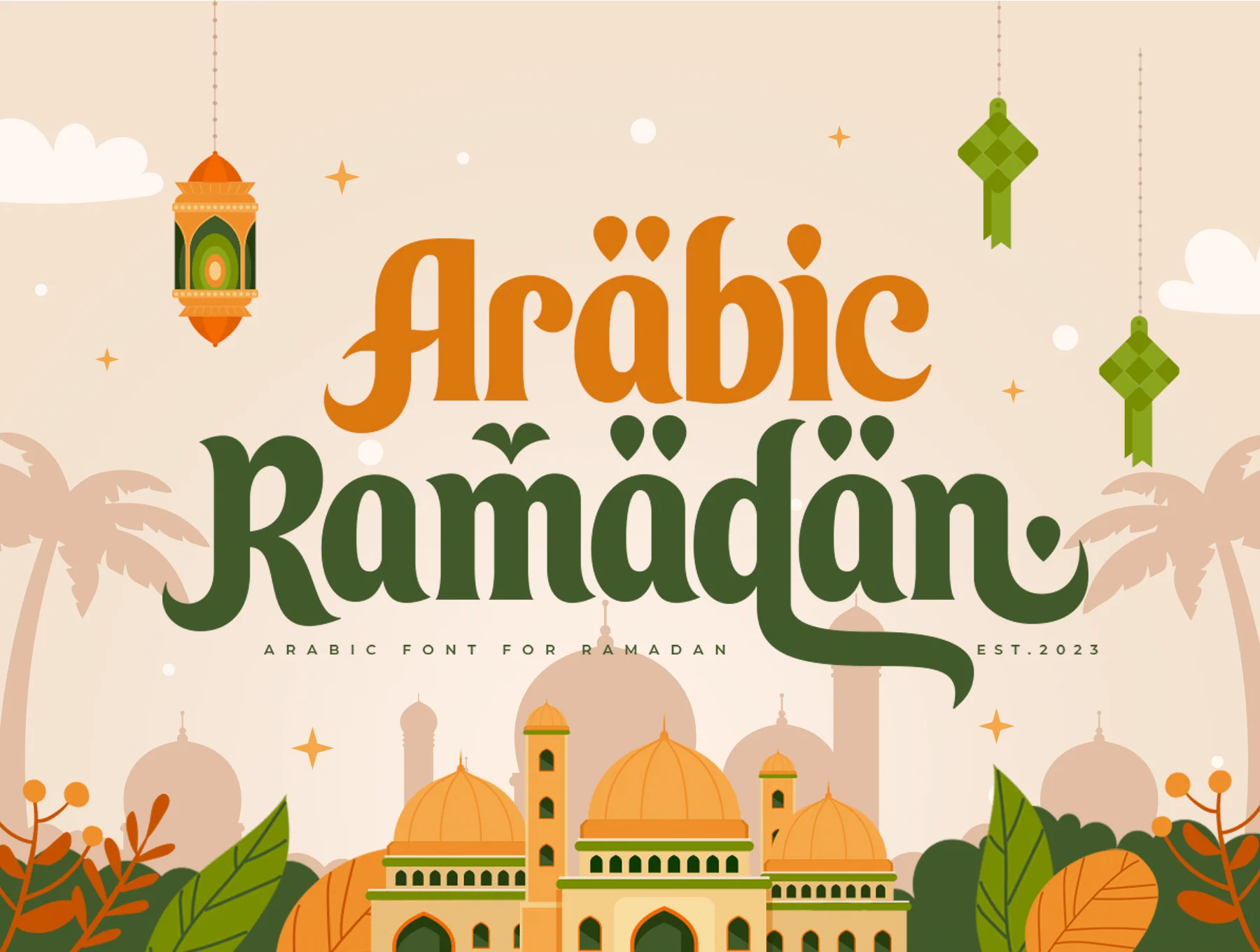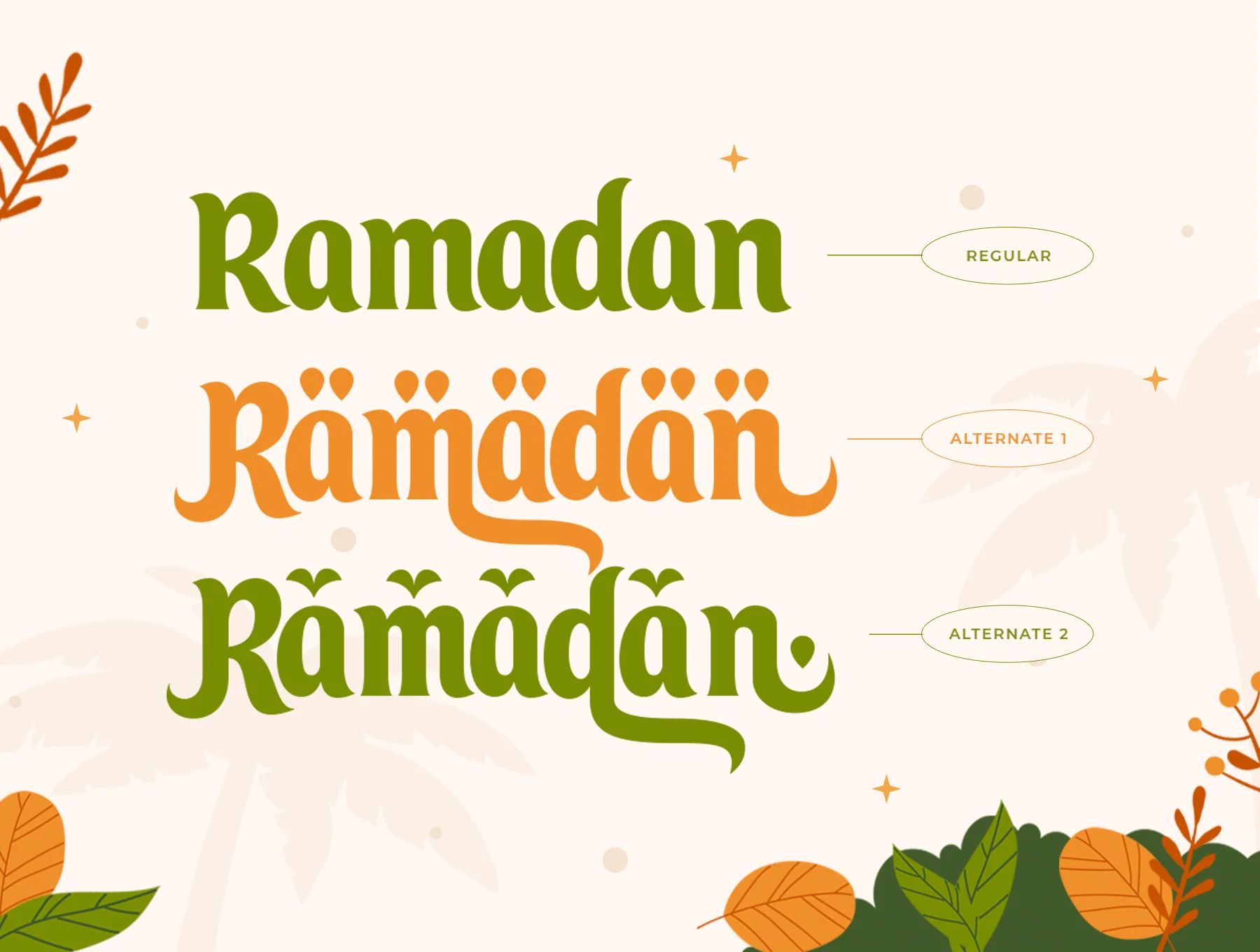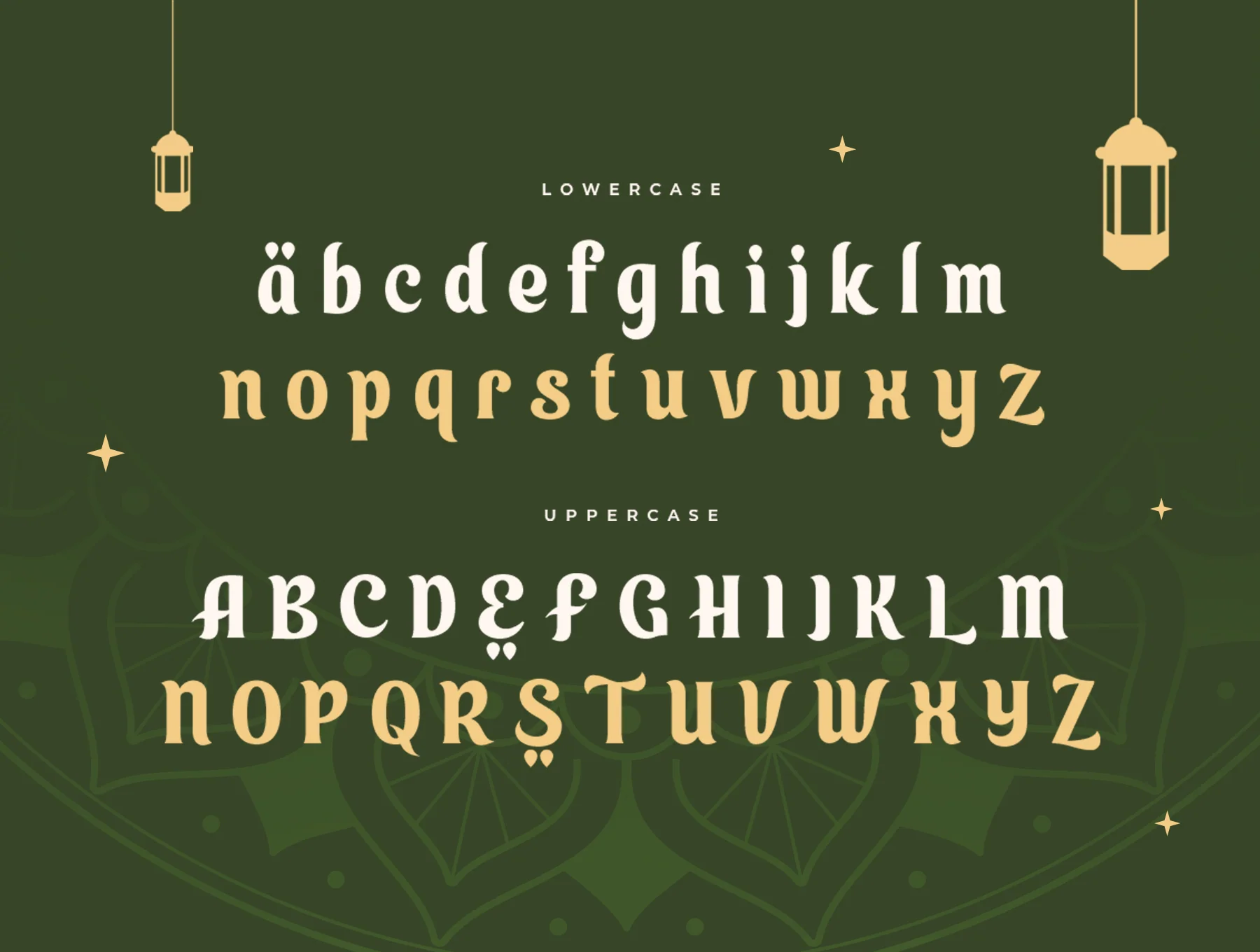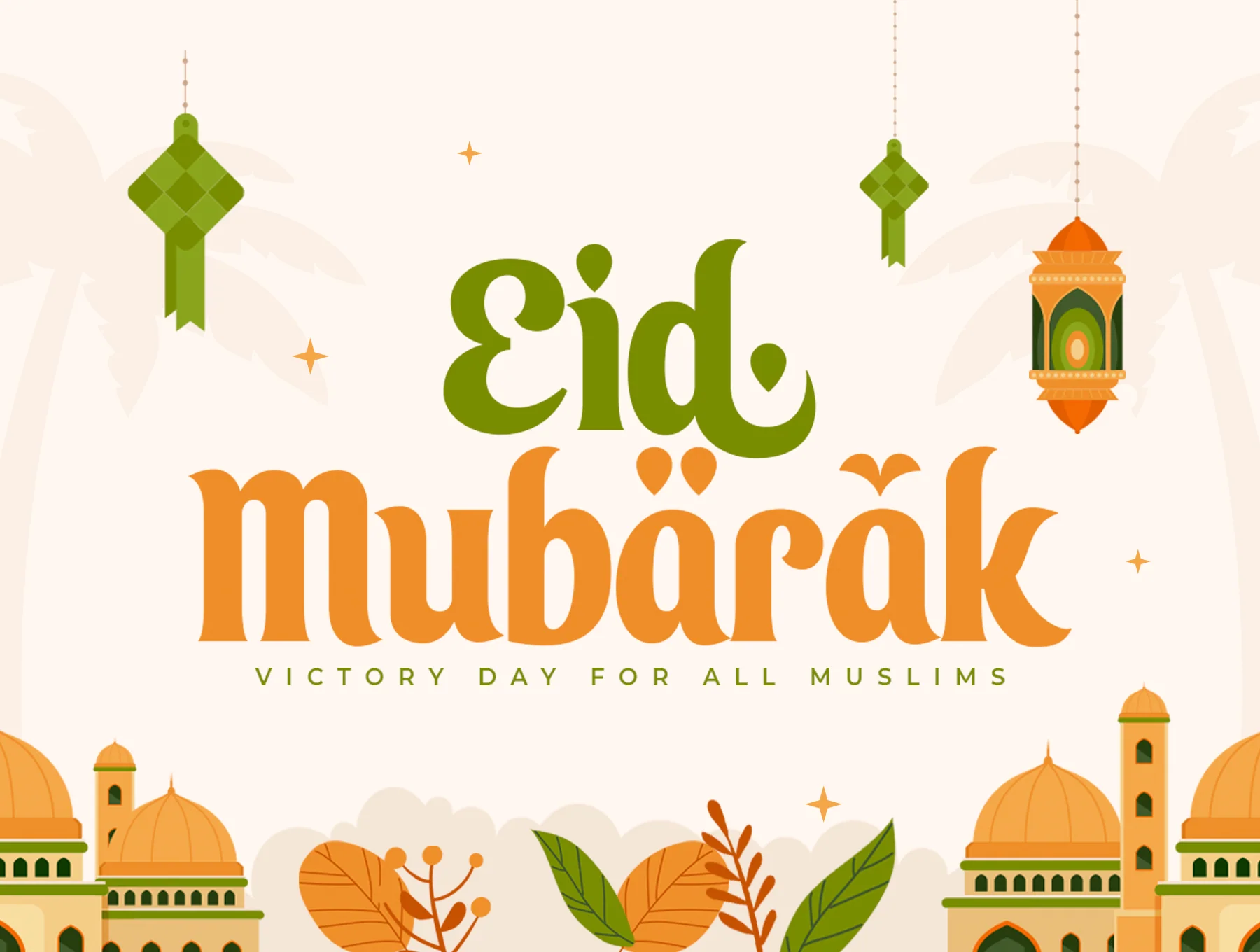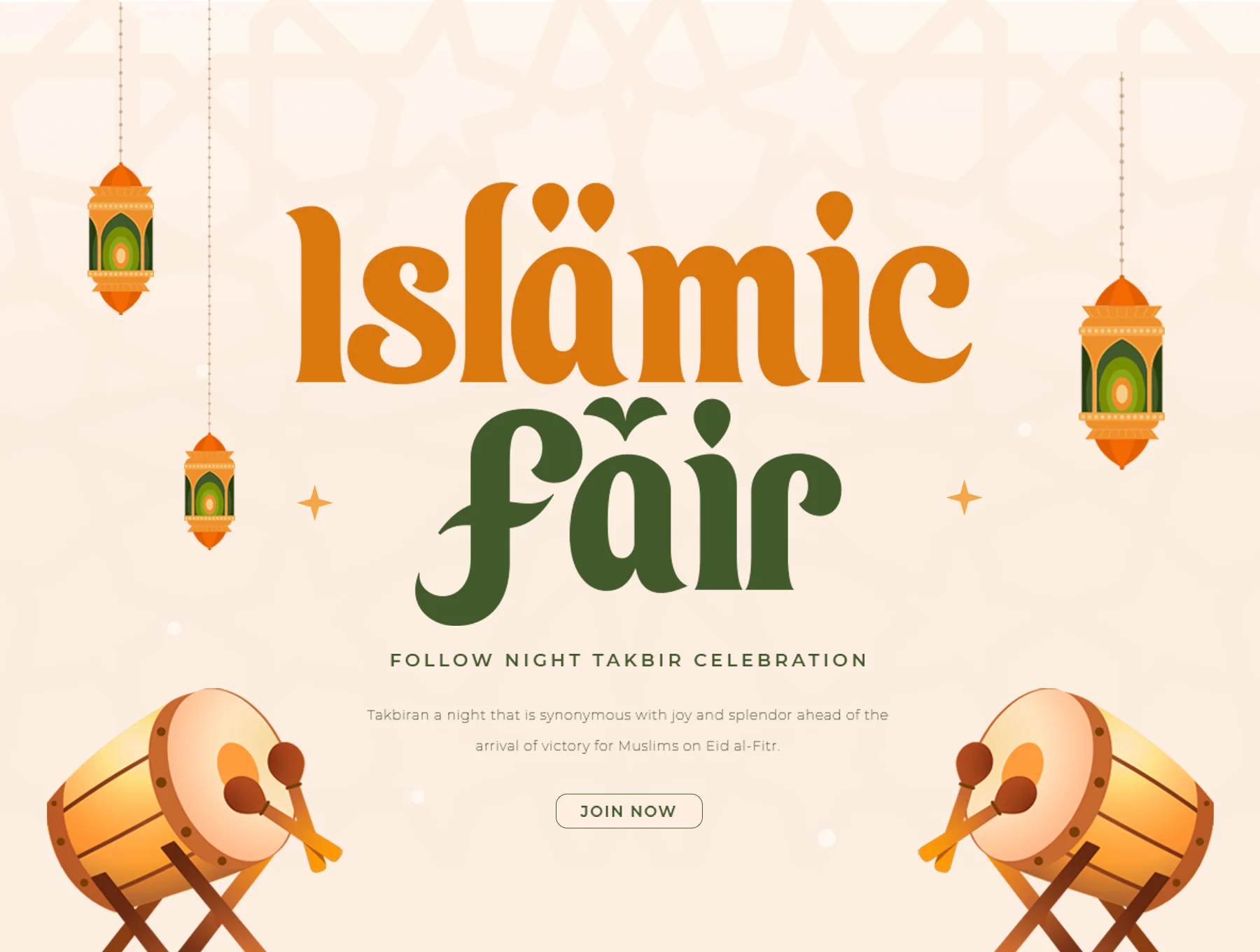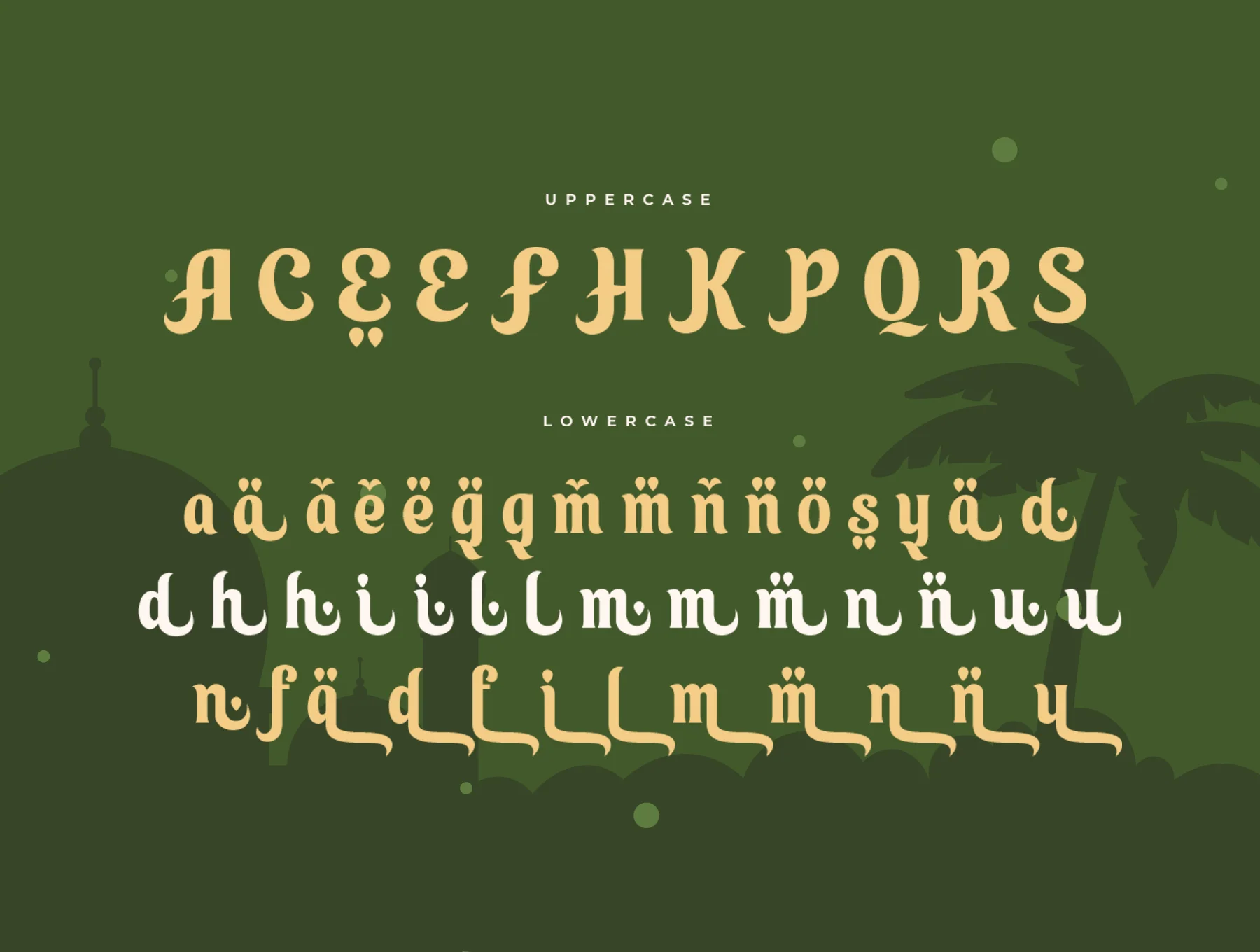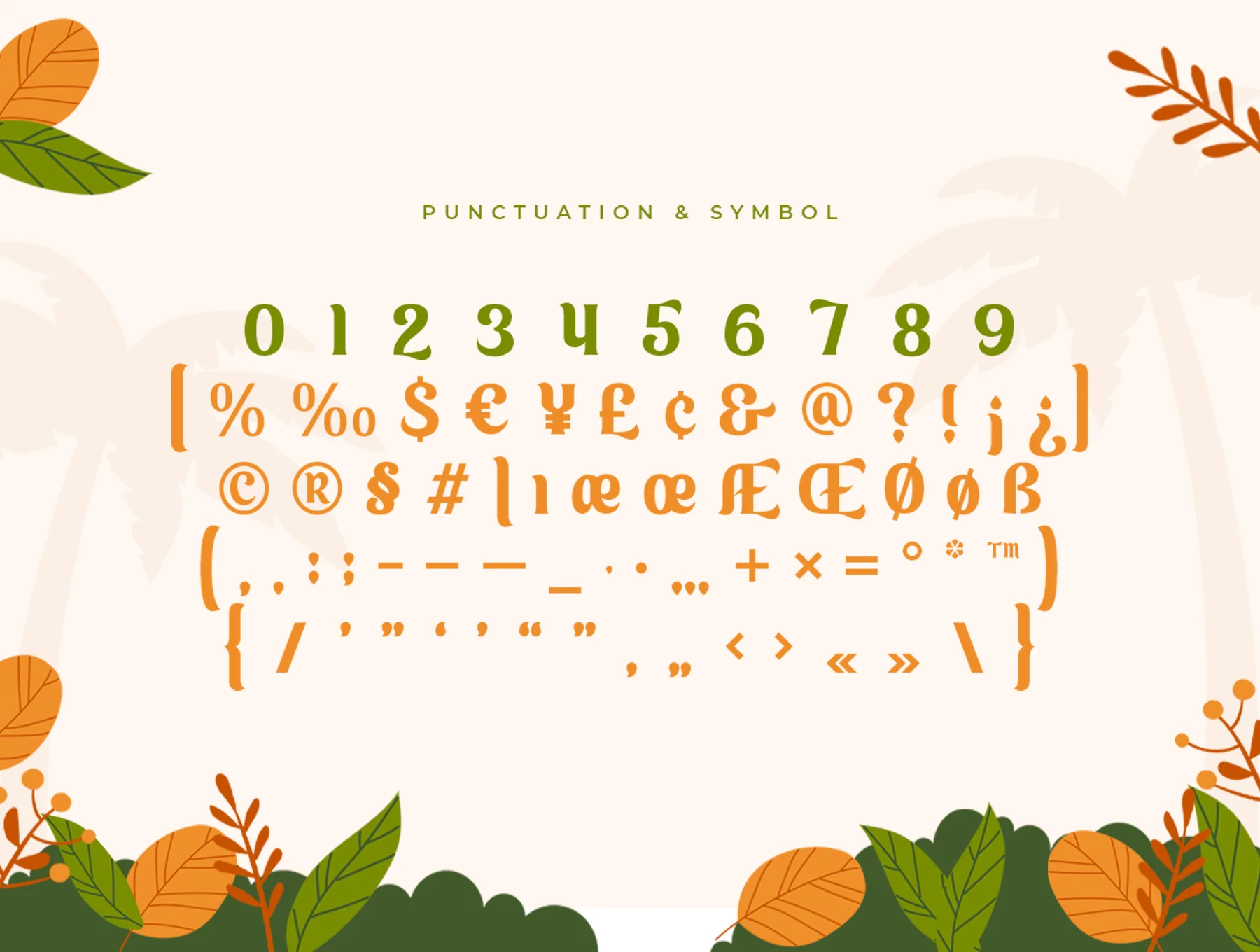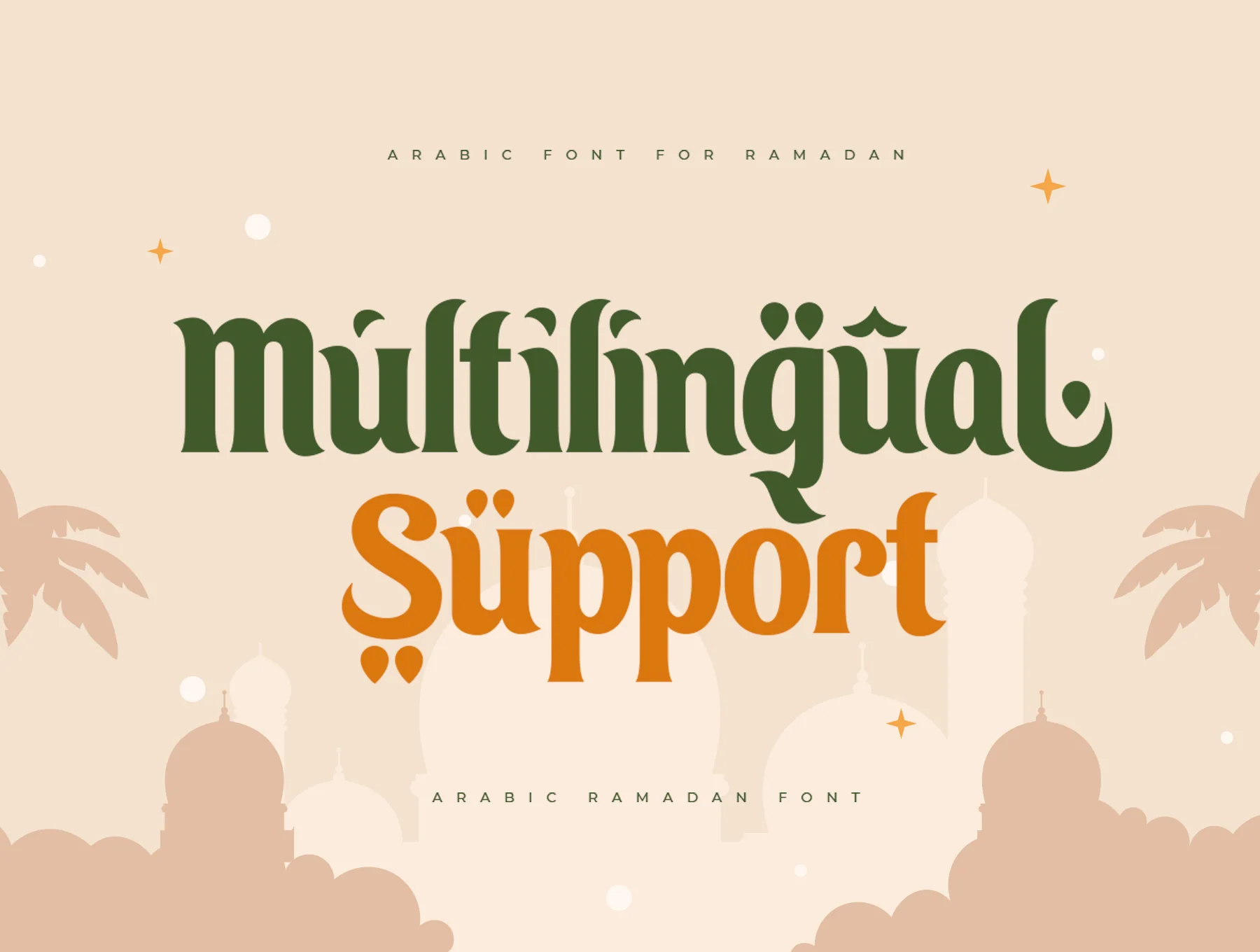
Arabic Font
Arabic Ramadan font for Ramadan season
Numbers and punctuation
Distinct alternate forms
Arabic Ramadan Font is a distinctive, versatile Arabic serif display font with moderate contrast and alternate forms for quick shape variations. It is ideal for branding, logos, weddings, social media, ads, packaging, labels, photography, watermarks, invitations, stationery, and other projects that need strong legibility.